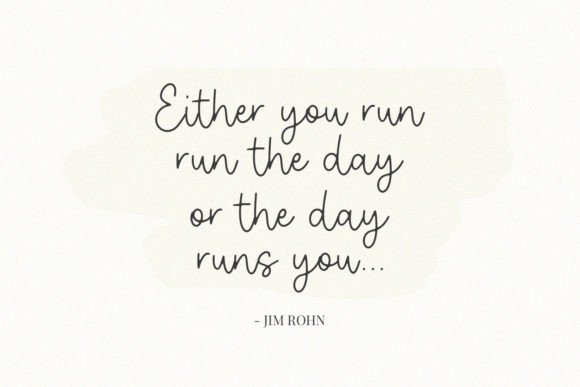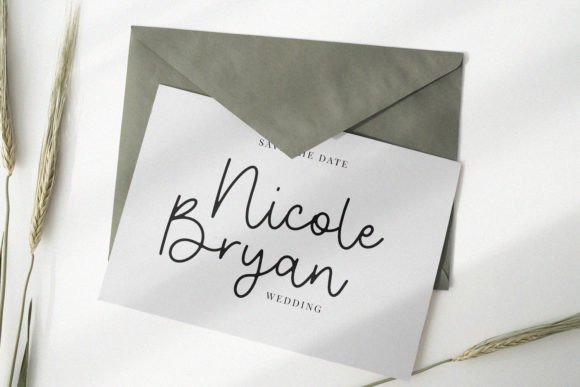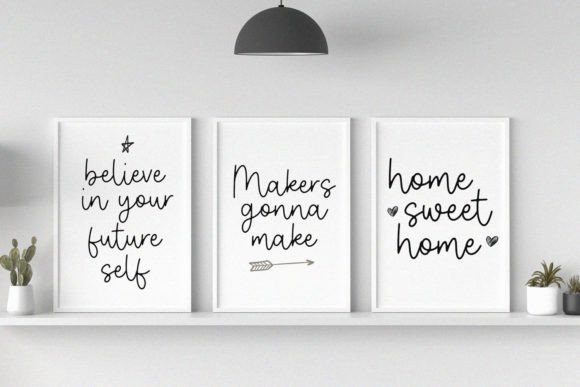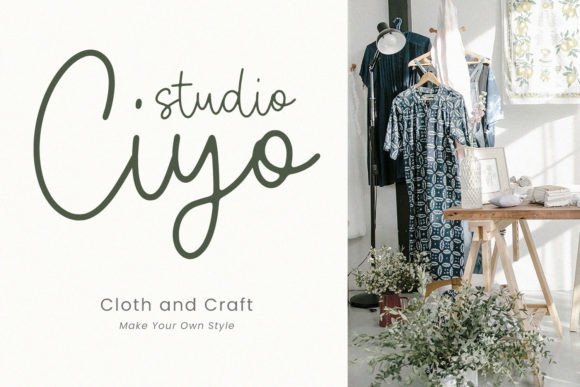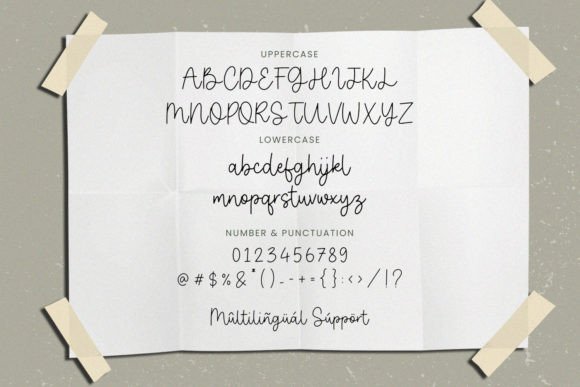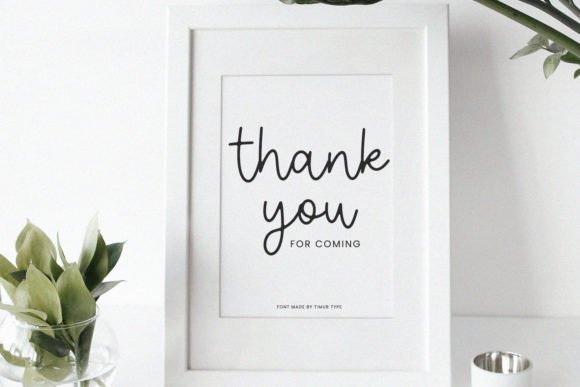
The Designer’s Delight: Unveiling the Elegance of Amberstone Font
I’ll never forget the moment I stumbled upon Amberstone Font while working on a wedding invitation project. My client had a very specific vision – elegant, sophisticated, and with a touch of whimsy. I had scoured the internet for what felt like hours, trying font after font, but nothing seemed quite right. That was until I saw Amberstone. Its beautiful, flowing script immediately caught my eye, and I knew I had found the one. In this article, I’ll share my love for Amberstone, its features, and how to make the most of it in your designs.
An Honest Review: The Good, the Great, and a Few Quirks
Amberstone Font is truly a gem in the world of typography. Here’s what I love about it:
- ✨ Exquisite Handwritten Feel: Amberstone maintains a classy, calligraphic influence that feels both traditional and contemporary.
- ✅ Versatility: It’s perfect for a wide range of projects, from wedding invitations and branding to packaging and digital media.
- 💫 Readability: Despite its elegant nature, Amberstone remains highly readable, even at smaller sizes.
Of course, no font is perfect, and Amberstone has a few quirks:
- 🤔 Limited Use in Body Text: While Amberstone shines in headings and short texts, it might not be the best choice for long body text due to its script nature.
- ⚠️ Requires Attention to Kerning: As with many script fonts, you might need to adjust kerning for optimal results, especially in larger texts or headings.
The Story Behind Amberstone: A Glimpse into Its Design Inspiration
Amberstone Font was crafted with love and attention to detail, inspired by the beauty of handwritten calligraphy. Its designer aimed to create a font that feels both luxurious and approachable, perfect for a wide range of creative projects. The result is a font that exudes elegance while remaining friendly and accessible.
| Author | Timur type |
Q: Is Amberstone suitable for body text?
A: While Amberstone is stunning in headings and short texts, it’s not typically recommended for long body text due to its script nature and potential readability issues at smaller sizes.
Q: Does Amberstone support OpenType features?
A: Yes, Amberstone takes advantage of OpenType features, offering ligatures, stylistic alternates, and more to enhance your designs.